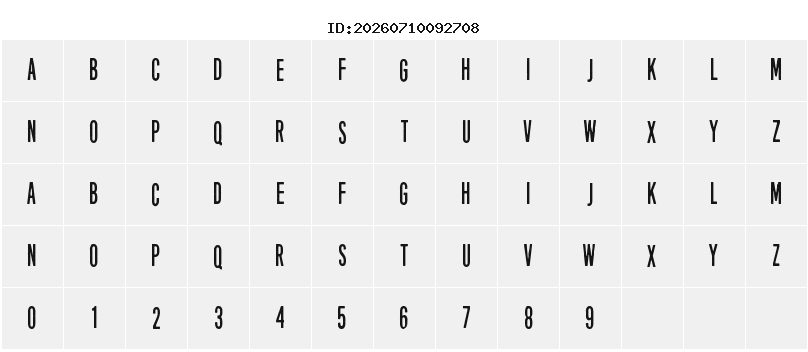
Eight Days A Week Preview
• Font Name: Eight Days A Week
• Full Font Name: Eight Days A Week
About Eight Days A Week.ttf
Eight Days A Week.ttf is a modern, elegant sans-serif font designed for ultimate readability and visual harmony. Perfect for branding, headlines, web design, and print materials.